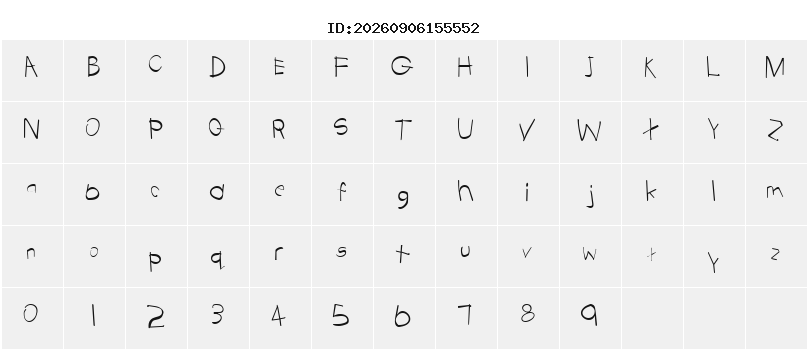
Tabatha Preview
• Font Name: Tabatha
• Full Font Name: Tabatha Regular
About Tabatha.ttf
Tabatha.ttf is a modern, elegant sans-serif font designed for ultimate readability and visual harmony. Perfect for branding, headlines, web design, and print materials.